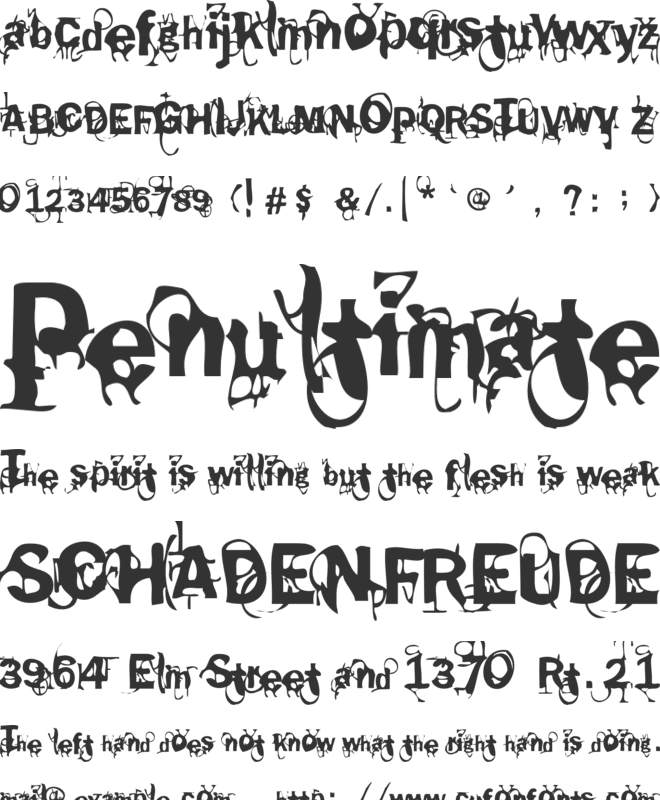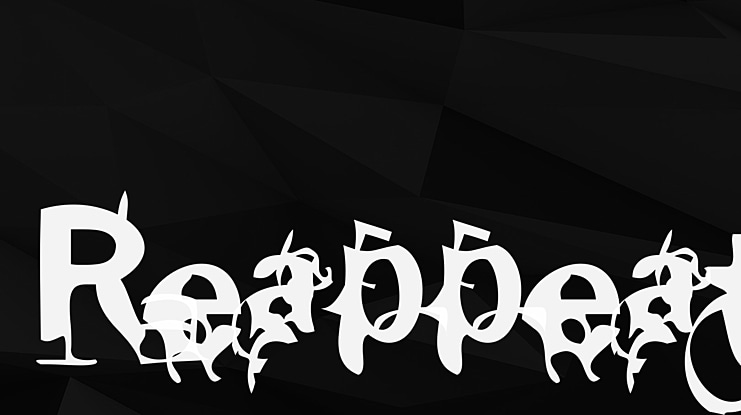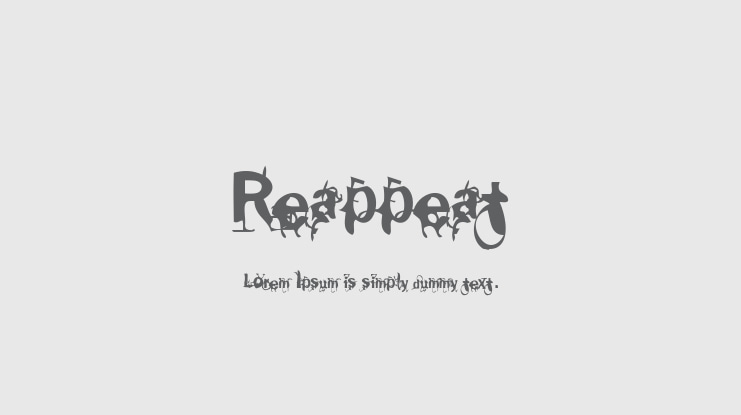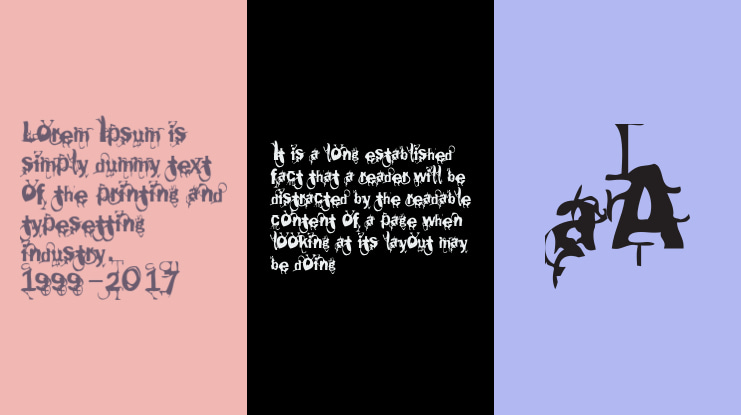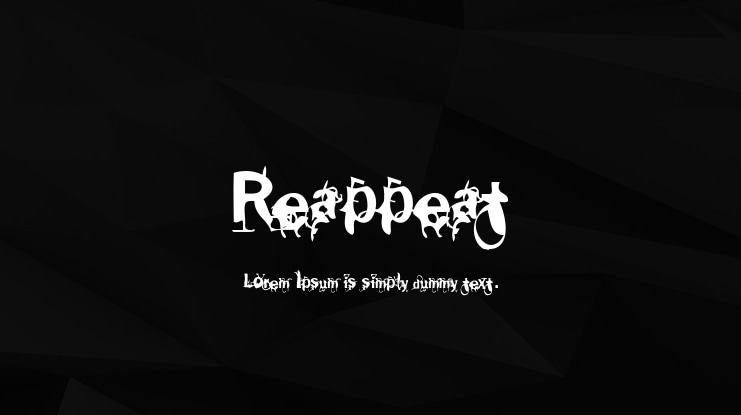
Reappeat Font
The process of making of this font was typing the letters on the old typewriter machine again and again... on the same papers. Than i have scanned them and from the mess on the papers i chose most interesting letters 'symbols'. It's 100% free, enjoy! Every donation is welcome.